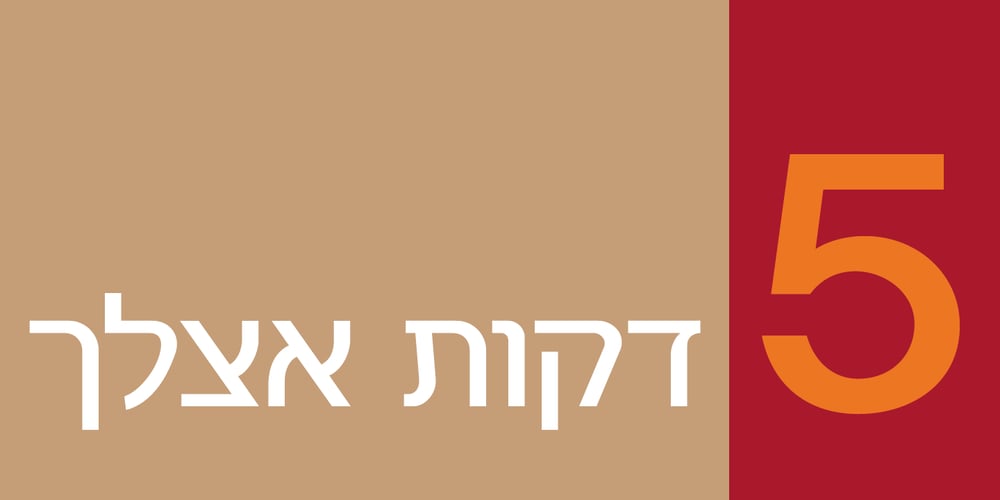
Avooka MF
Avooka MF font
Avooka MF Font Family was designed by Zvika Rosenberg and published by Masterfont. Avooka MF contains 3 styles and family package options. The formal letter formal will have that impressive touch to you next annual report.